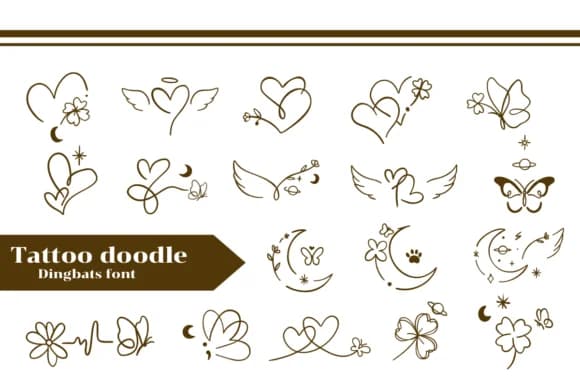
Tattoo Doodles by Apiwat Type is a dingbats collection featuring hand-drawn continuous line illustrations with a romantic, organic sensibility. It packs florals, celestial shapes, hearts, wings, and butterflies all rendered in that distinctive single-line style that feels personal rather than clip-art generic. Each glyph carries that sketch-like quality you get when a pen moves across paper without lifting; the unbroken line creates an aesthetic that feels authentic and unpolished in the best possible way. Designs using this collection work beautifully in tattoo flash designs, stationery projects, digital assets, and print packaging. Pull from this collection for wedding invitation suites, botanical sketchbook covers, small-batch beauty product branding, and handmade wall art pieces.
Scale the glyphs large for focal design elements or keep them small as decorative flourishes; the outline rendering works beautifully at any size. Designers love this line-art approach because it brings authentic handmade character to projects that might otherwise feel manufactured or generic. With enough variety in the set, you can layer multiple elements without repetition. Both OTF and TTF formats are included, giving you flexibility across different design tools and applications. Pick up Tattoo Doodles on Creative Fabrica and bring this versatile dingbats collection into your next project.
Tattoo Doodles Font is a versatile dingbats font that works for both headings and body text. Pair it with a contrasting sans-serif or serif font to add visual interest and a clear distinction between titles and body copy.
Tattoo Doodles Font